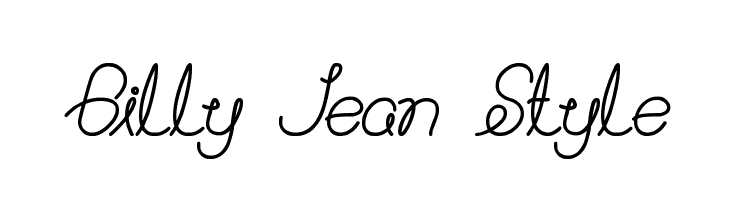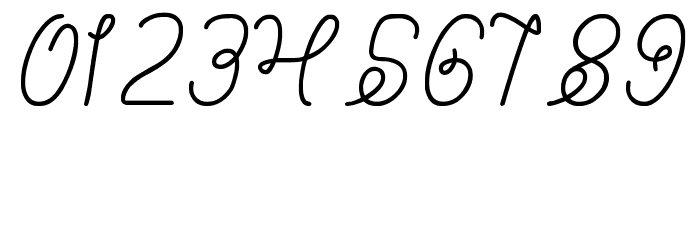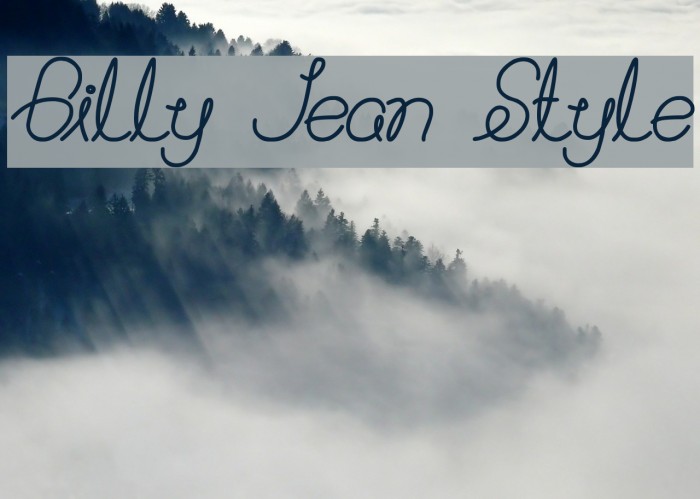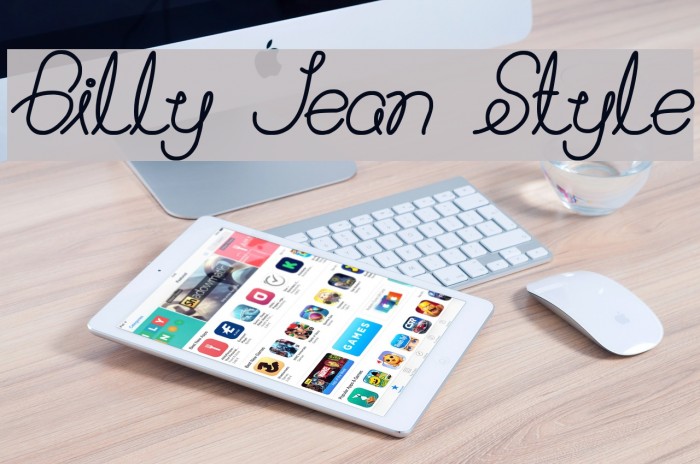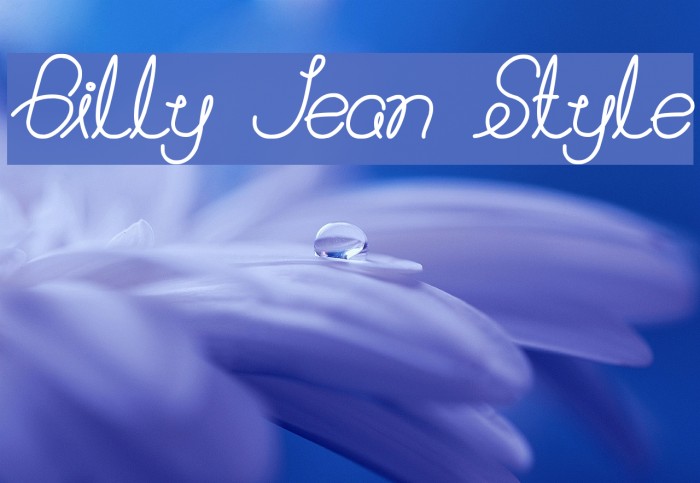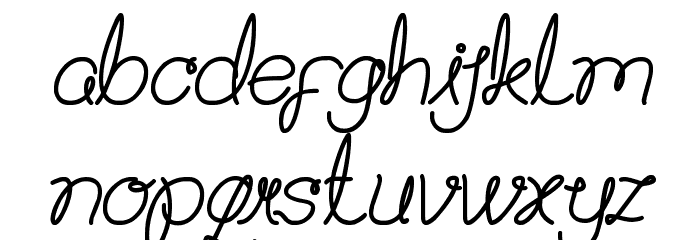
Billy Jean Style Font
Billy Jean Style Description
This font features a playful and whimsical script style, characterized by its flowing, interconnected letters. The uppercase letters exhibit a unique blend of curves and loops, giving them a lively and dynamic appearance. The lowercase letters maintain a consistent flow, enhancing the font's overall fluidity. Numbers and special characters are designed to match the cursive style, ensuring a cohesive look across all characters. The font's design is both elegant and approachable, making it suitable for a variety of creative applications.
| Use Case | Logos, Invitations, Greeting Cards |
| Proposed Projects | Ideal for wedding invitations, greeting cards, branding, and creative projects that require a touch of elegance and playfulness. |